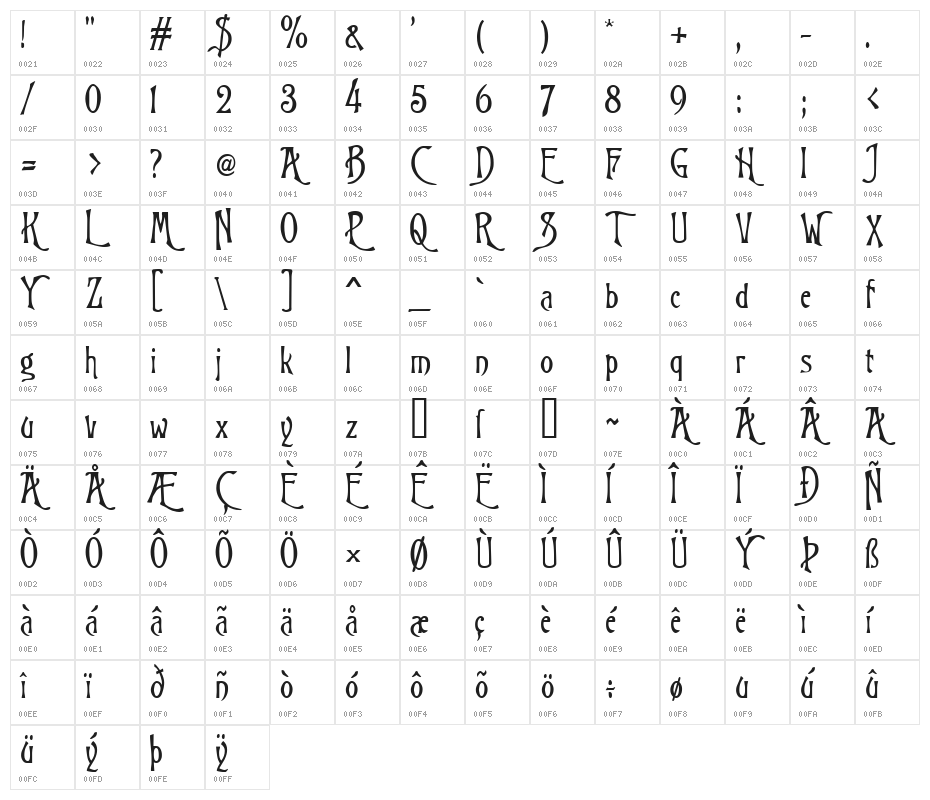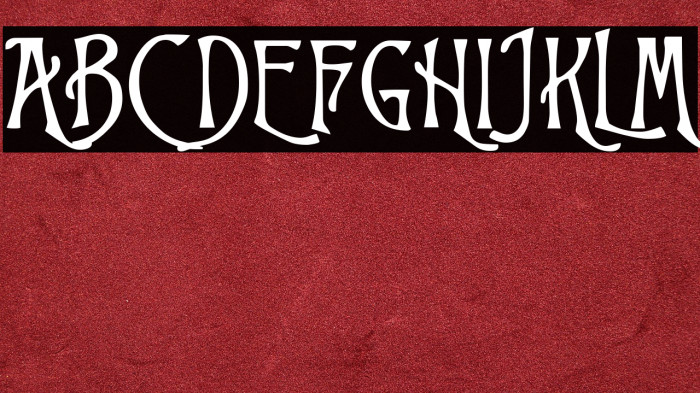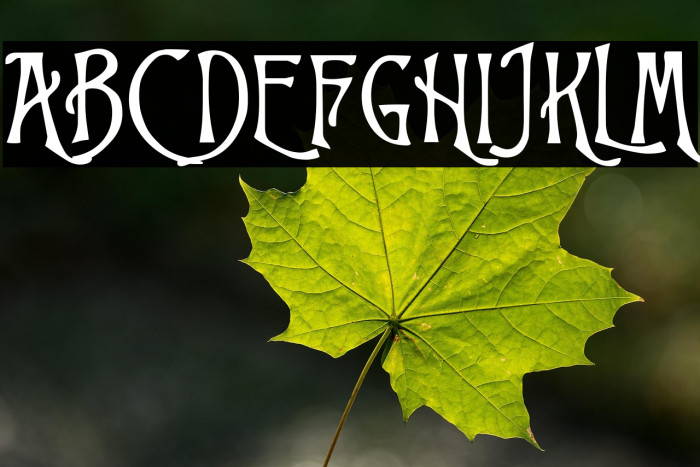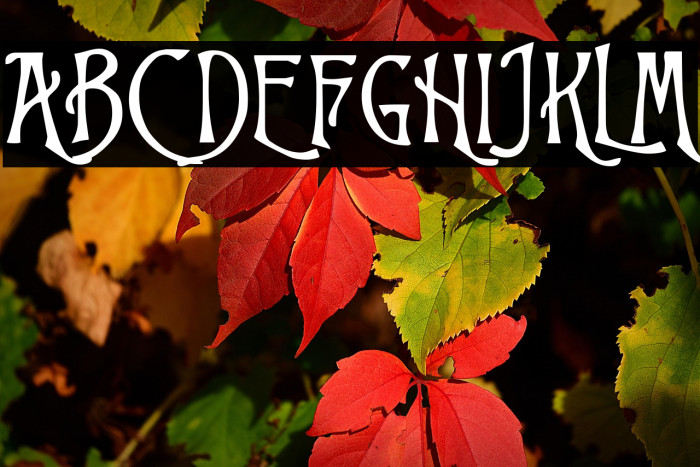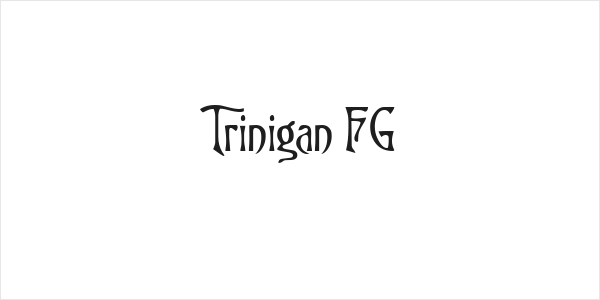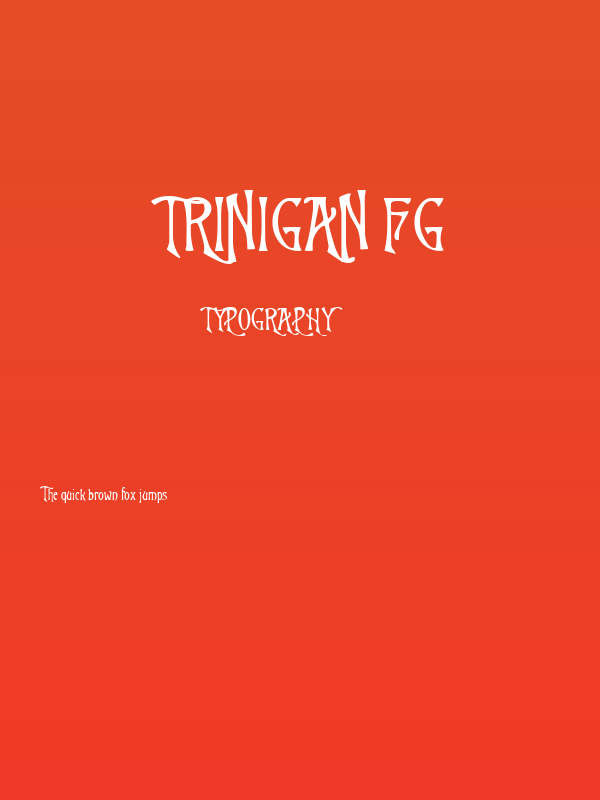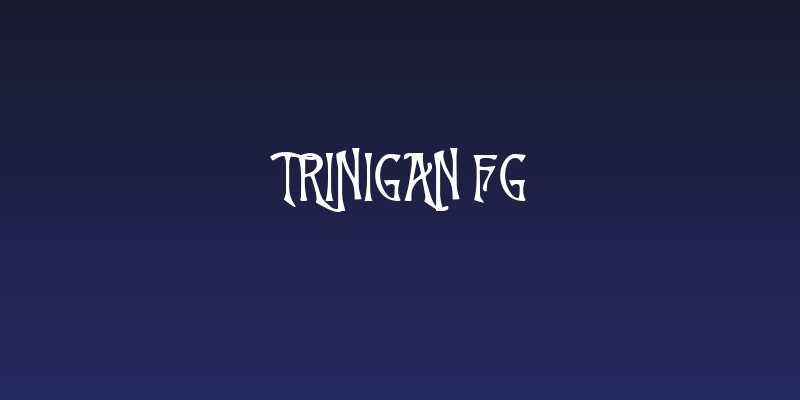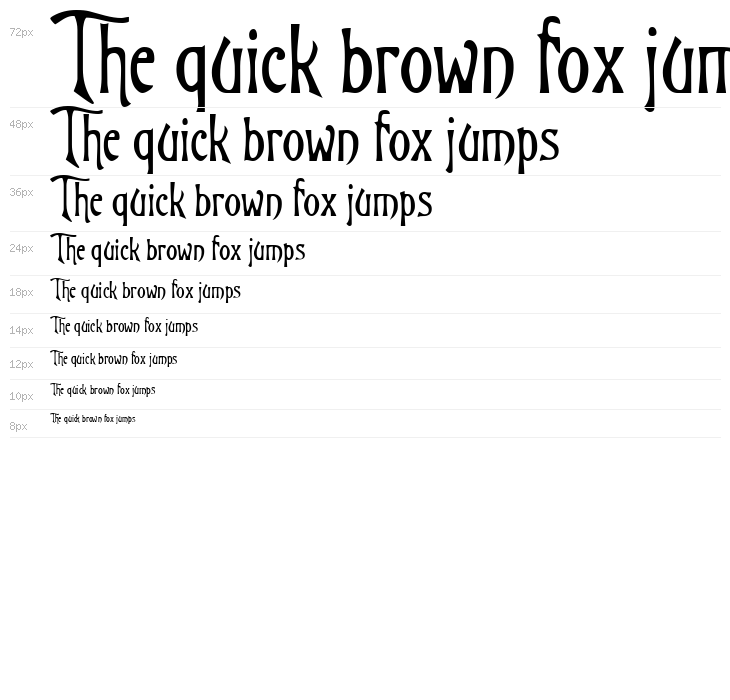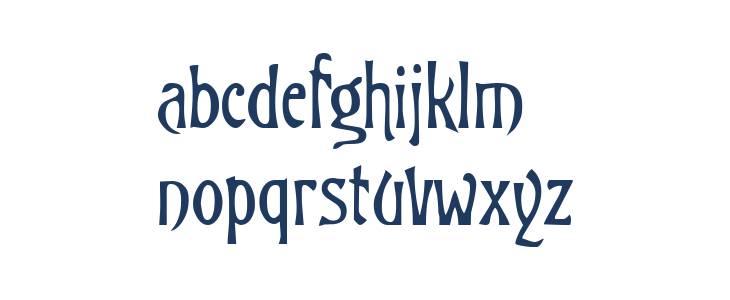
Trinigan FG Font
Trinigan FG Description
This font features a unique and whimsical style with exaggerated curves and playful forms. The uppercase letters have a distinct, bold presence with elongated strokes and varying widths, creating a dynamic and eye-catching appearance. The lowercase letters maintain the playful theme with slightly more subdued curves, offering a harmonious balance. Numbers and special characters follow the same design principles, ensuring consistency across all glyphs. This font's artistic flair makes it suitable for creative and expressive projects.